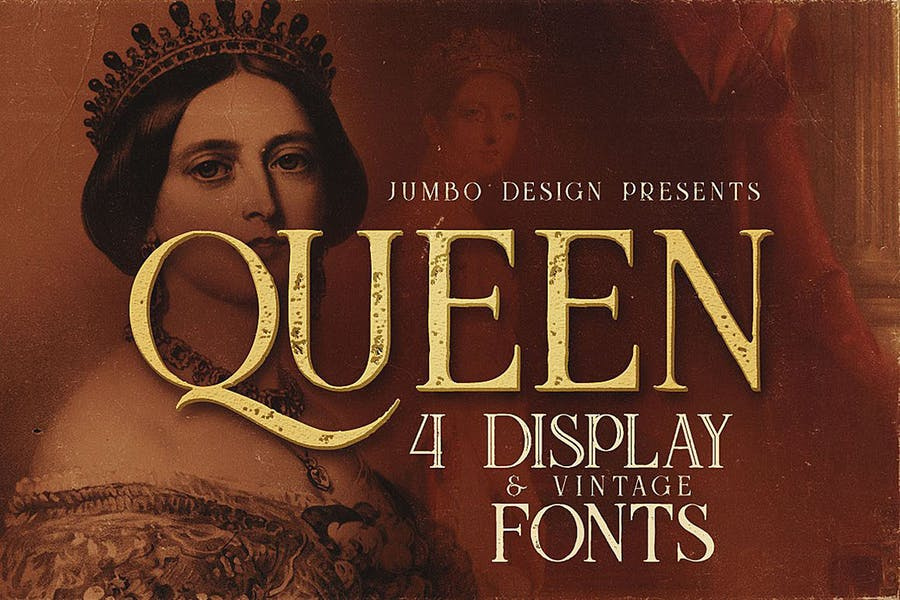
Queen - Display Font
Queen - Display Font is perfect for luxury fashion brands, royal wedding invitations, prestigious jewelry collections, high-end beauty products, exclusive hotel communications, sovereign event materials, imperial restaurant branding, distinguished award ceremonies, regal lifestyle campaigns, and majestic entertainment venues.
Queen - Display Font creates excitement because it embodies the sovereign elegance and royal magnificence of true monarchy with its commanding letterforms and crown-inspired character design. The font's regal proportions and majestic aesthetic instantly convey imperial authority and royal sophistication, making any brand appear truly sovereign and authentically royal. Its carefully crafted royal details and queenly character create an immediate sense of imperial grandeur that captivates audiences seeking regal experiences, royal quality, and products that celebrate the transformative power of sovereign elegance and majestic excellence.
The Queen - Display Font family includes multiple weights and styles: Regular, Bold, Light, Medium, Black, Italic, Condensed, Extended, Royal, and Imperial versions. Each variant maintains the font's signature sovereign character while offering different levels of regal styling and royal authenticity suitable for various luxury and prestigious applications.
This majestic typeface brings the authentic spirit of royal sovereignty into contemporary luxury design with remarkable grandeur and imperial appeal. Queen - Display Font Free Download provides luxury brands and prestigious institutions with access to premium royalty-inspired typography that embodies the essence of sovereign power and imperial excellence. The font's commanding design and royal authenticity make it ideal for businesses seeking to establish meaningful connections with luxury-minded audiences who appreciate royal heritage, sovereign quality, and the transformative power of imperial elegance that commands respect and admiration. Whether you're creating branding for luxury establishments, designing materials for prestigious events, developing communications for royal institutions, or producing content for sovereign lifestyle brands, this font delivers the majestic royal atmosphere that resonates with audiences seeking genuine regal experiences, imperial quality, and the sovereign elegance that comes from embracing authentic royal heritage. Its versatile design ensures outstanding performance across both prestigious printed materials and distinguished digital platforms while maintaining the character of authentic royal typography. The font excels in applications requiring royal credibility and sovereign appeal. Luxury professionals appreciate its ability to convey imperial authenticity while remaining highly functional for various prestigious communications and royal promotional materials. The comprehensive character set includes royal symbols and extensive international language support, making it perfect for global luxury brands and international royal organizations seeking to communicate authentic sovereign values, imperial excellence, and royal sophistication to diverse worldwide audiences who embrace royal heritage, appreciate sovereign quality, and value the transformative power of genuine imperial culture that creates lasting legacy through commanding leadership, sovereign distinction, and the timeless authority of royal excellence that defines true majestic greatness and imperial achievement through the eternal principles of sovereign honor and royal magnificence.